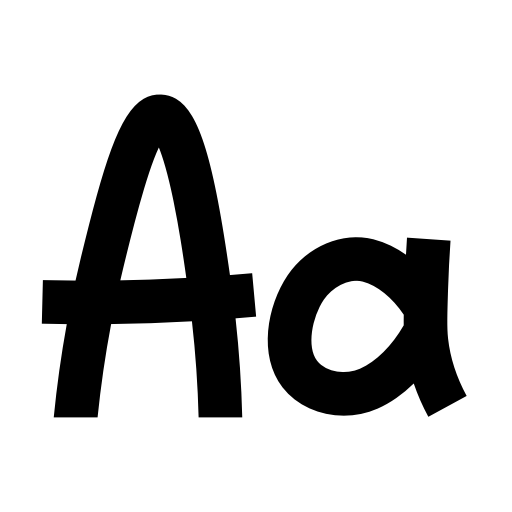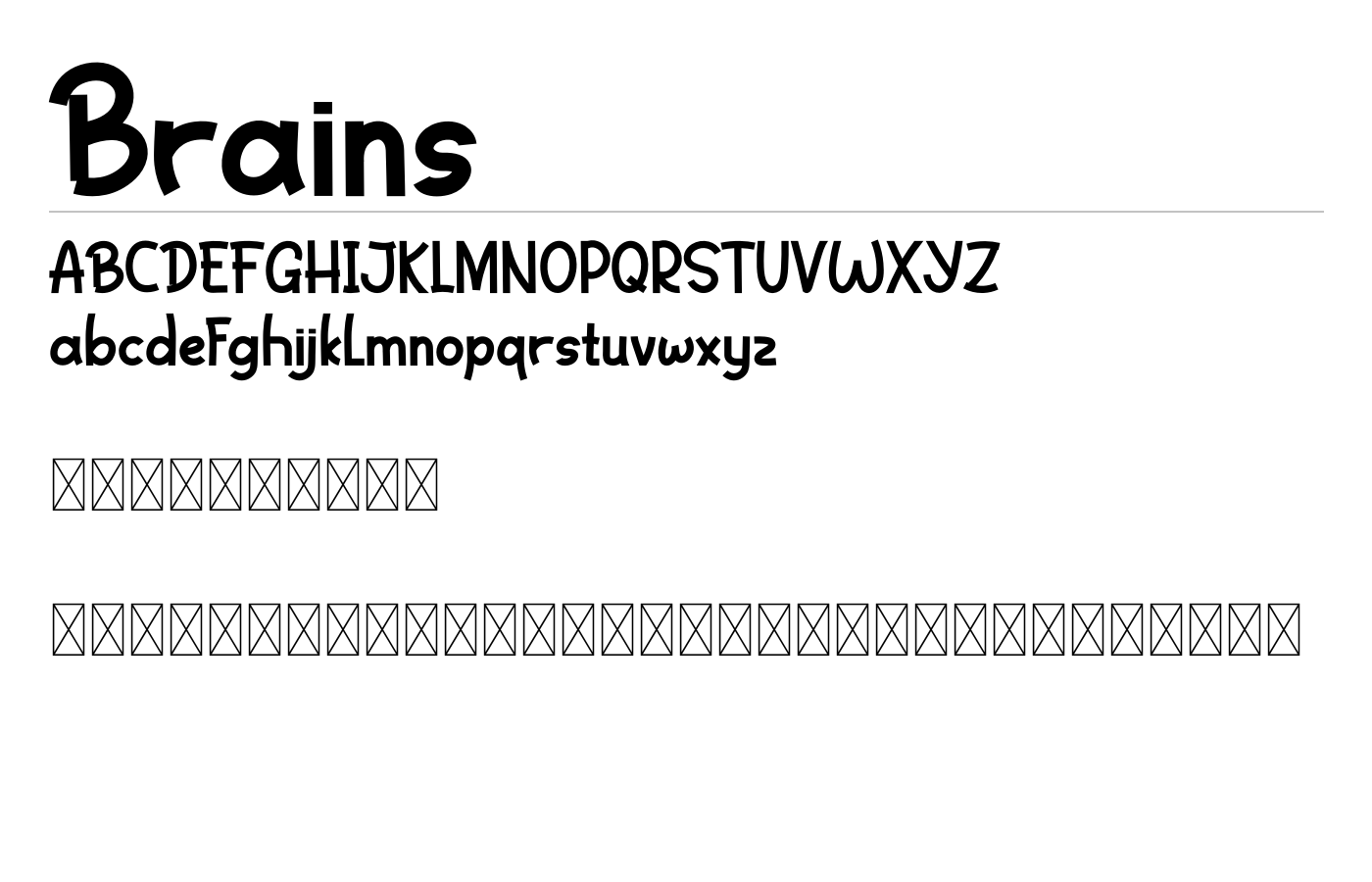
Brains Font is a playful and casual sans serif typeface with a slightly quirky, hand-drawn feel. Its round, irregular shapes and moderate weight create a friendly and approachable personality that works well for children’s books, creative projects, or informal branding. This font’s unique charm makes it ideal for headlines, logos, and designs that aim to be fun and distinctive without sacrificing legibility.
Brains Font
About Brains Font